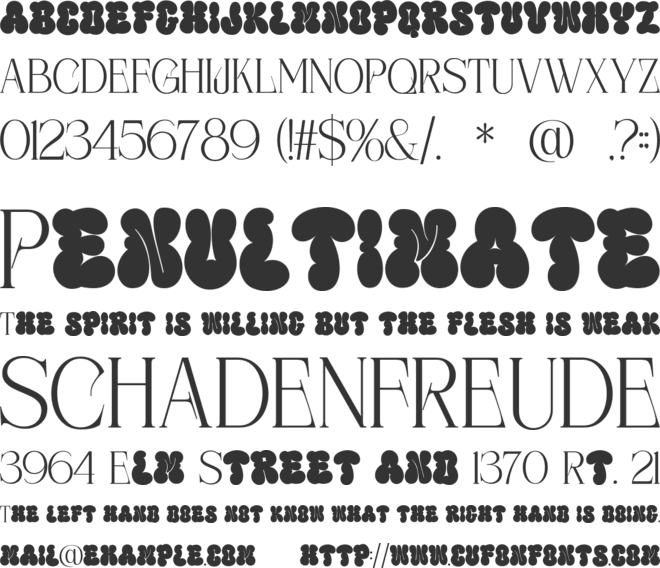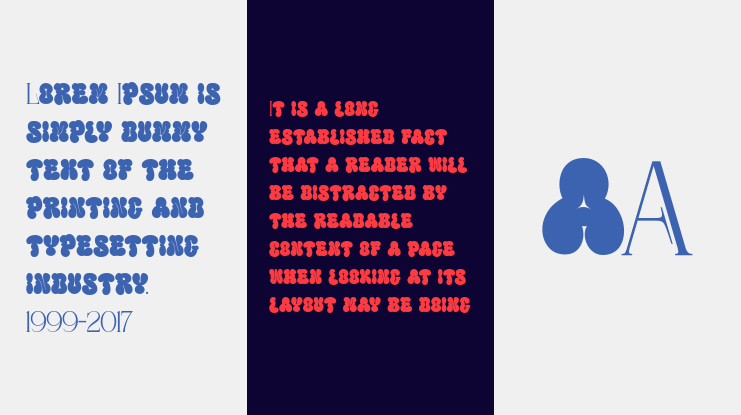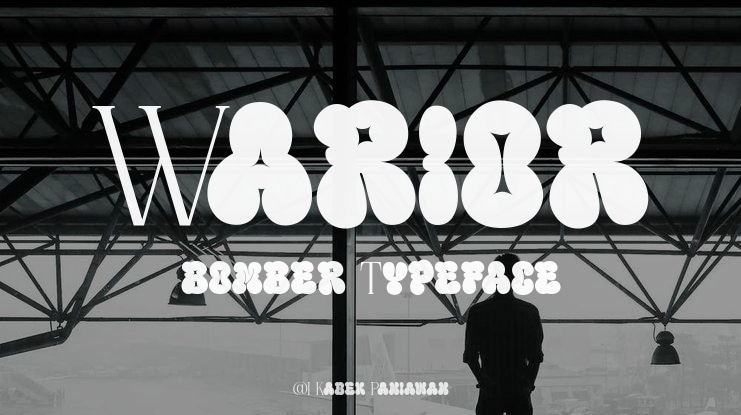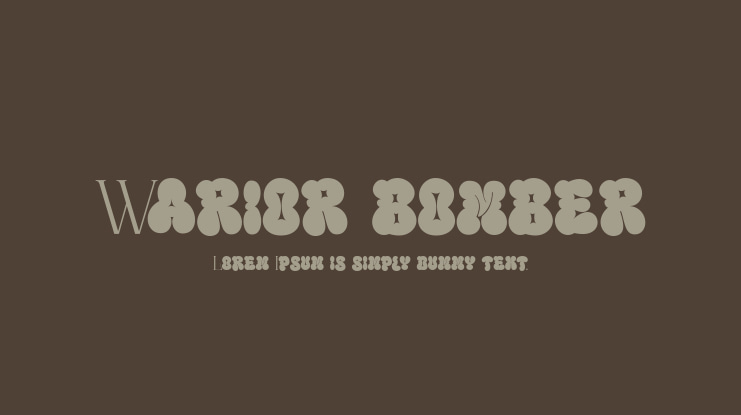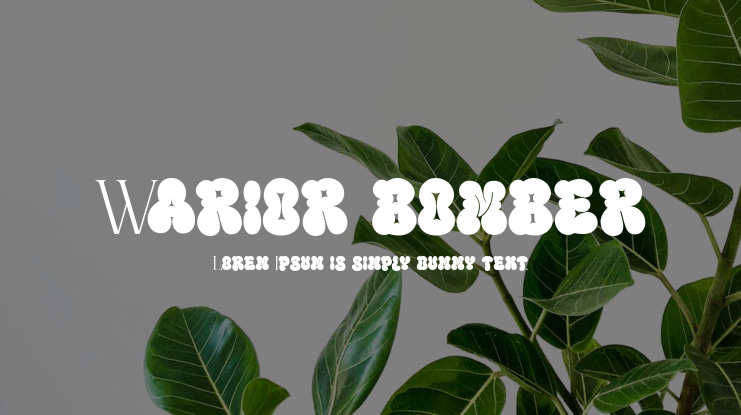
Warior bomber Font
"Warior Bomber" is a striking and expressive font that seamlessly merges the edgy aesthetic of bubble graffiti with the sophistication of a unique serif typeface. Its design embodies a fusion of urban street art with a touch of refined elegance, making it a perfect choice for projects seeking a balance between rebellion and sophistication.